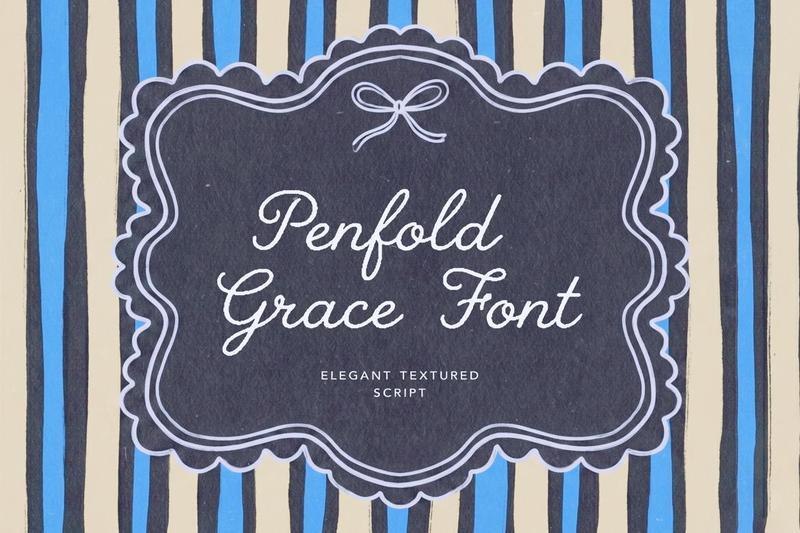
Penfold Grace Script QKXPXWE
Penfold Grace is an elegant textured script font with a soft, romantic feel. Designed with delicate curves and a natural handwritten flow, it brings a refined and timeless look to any design.